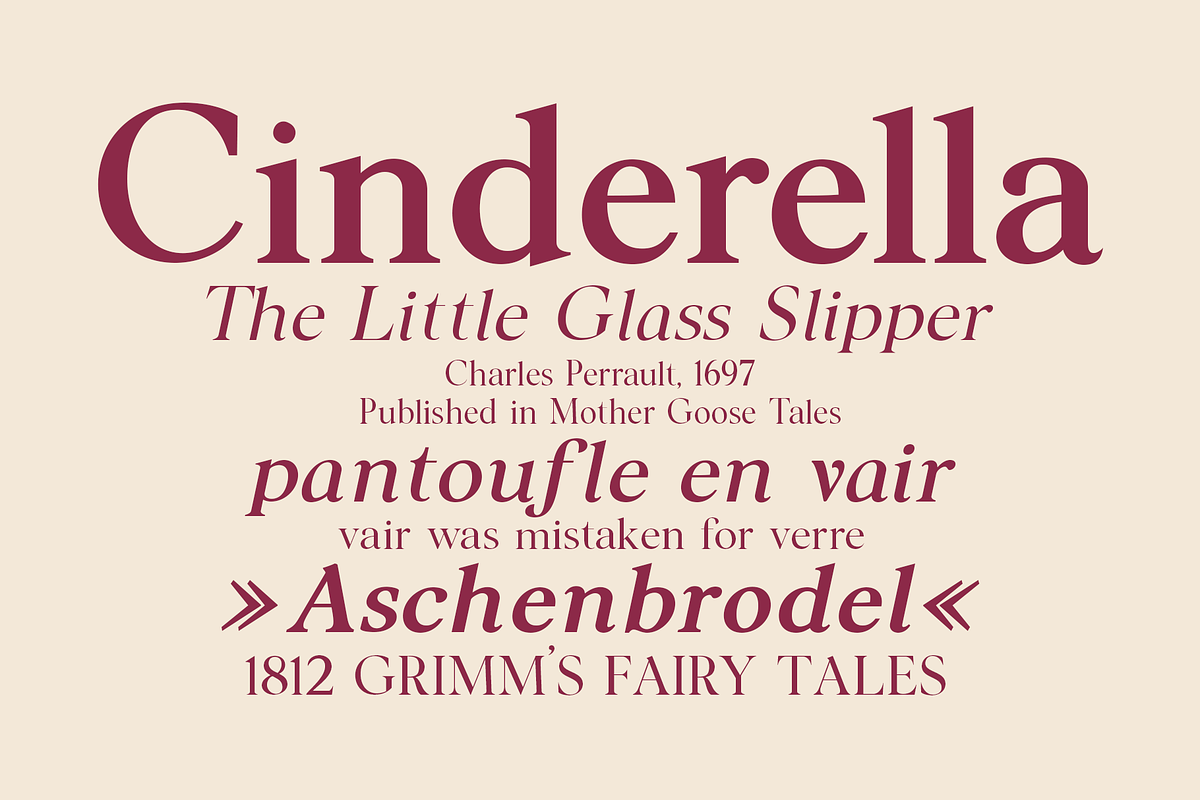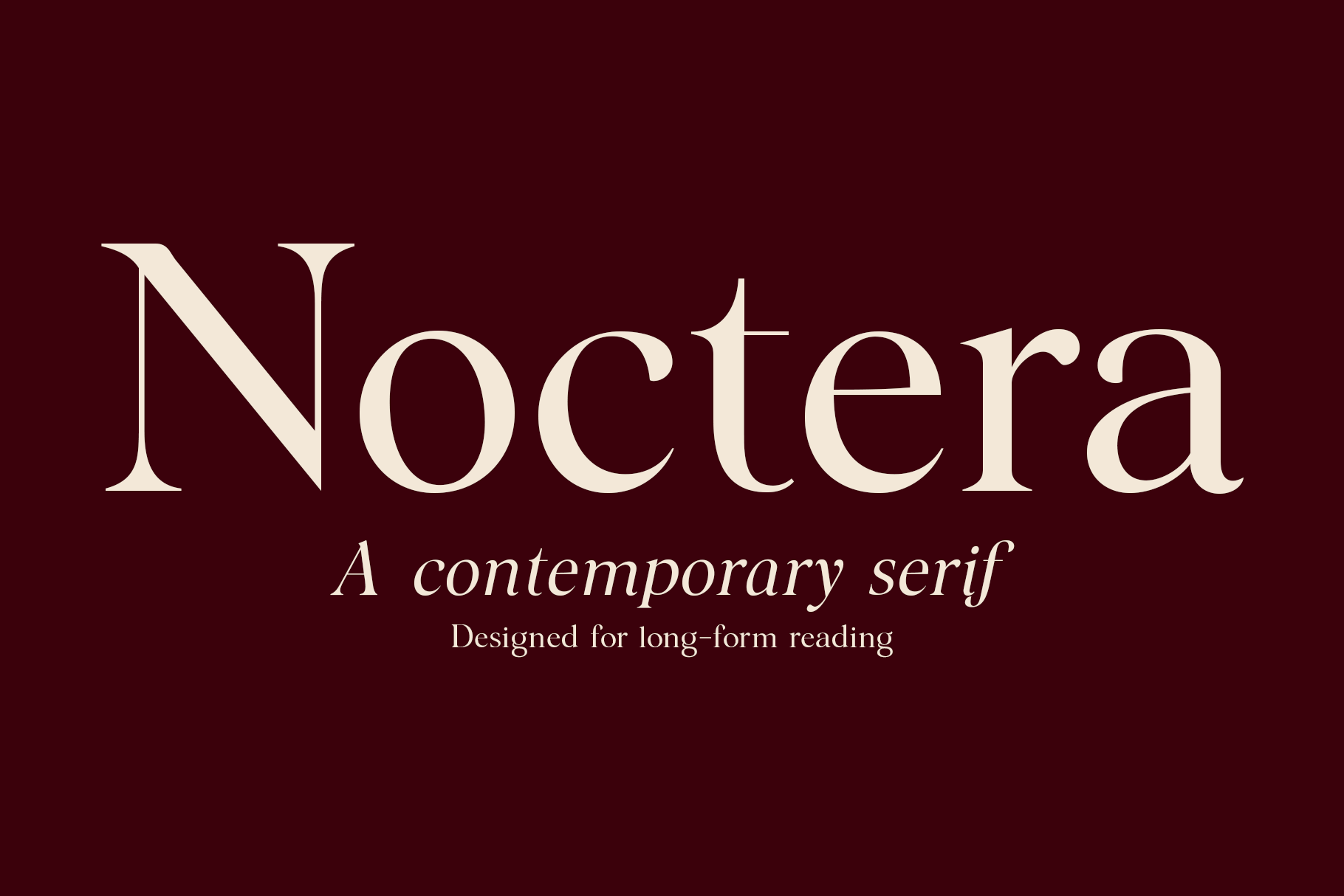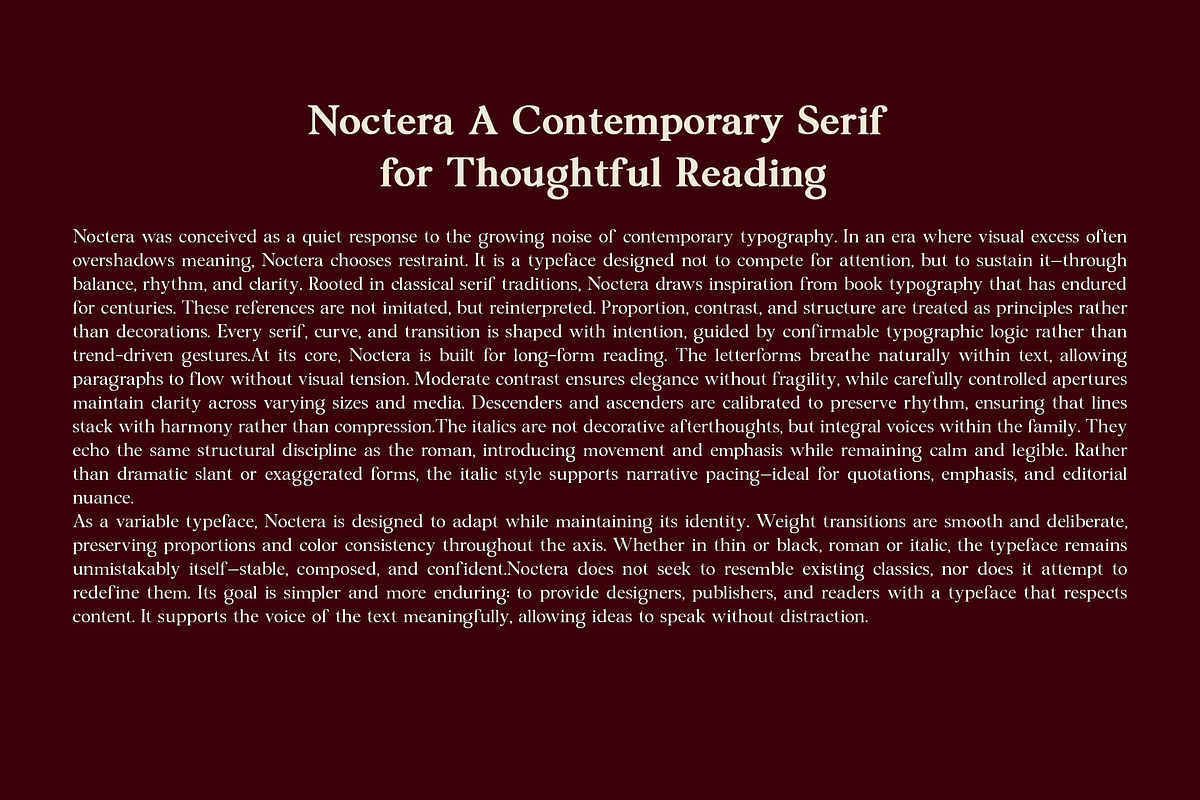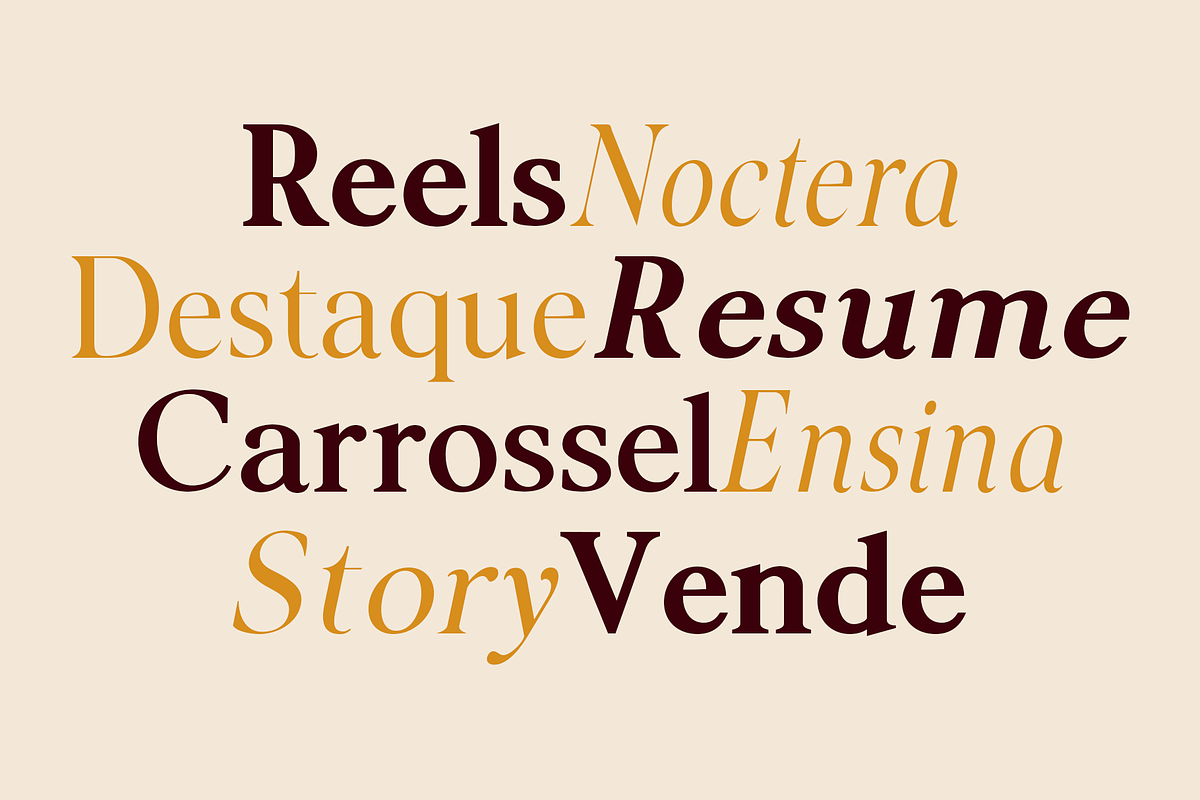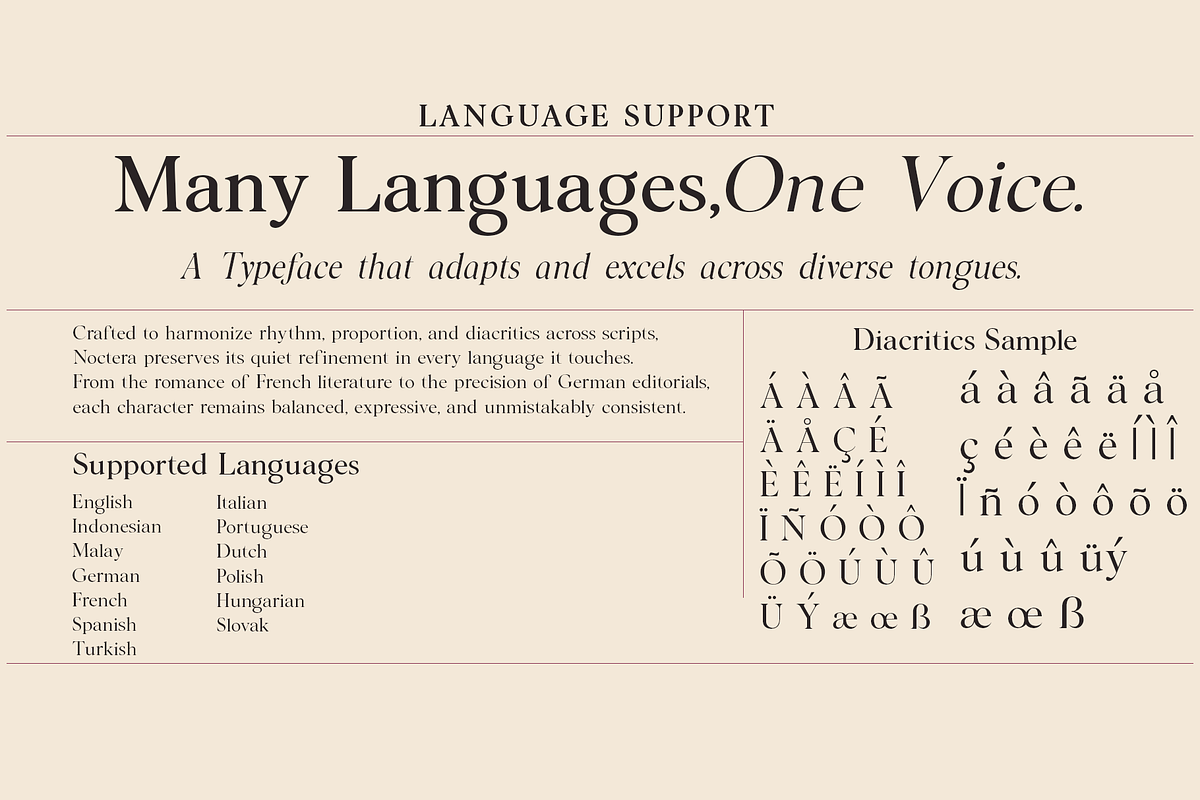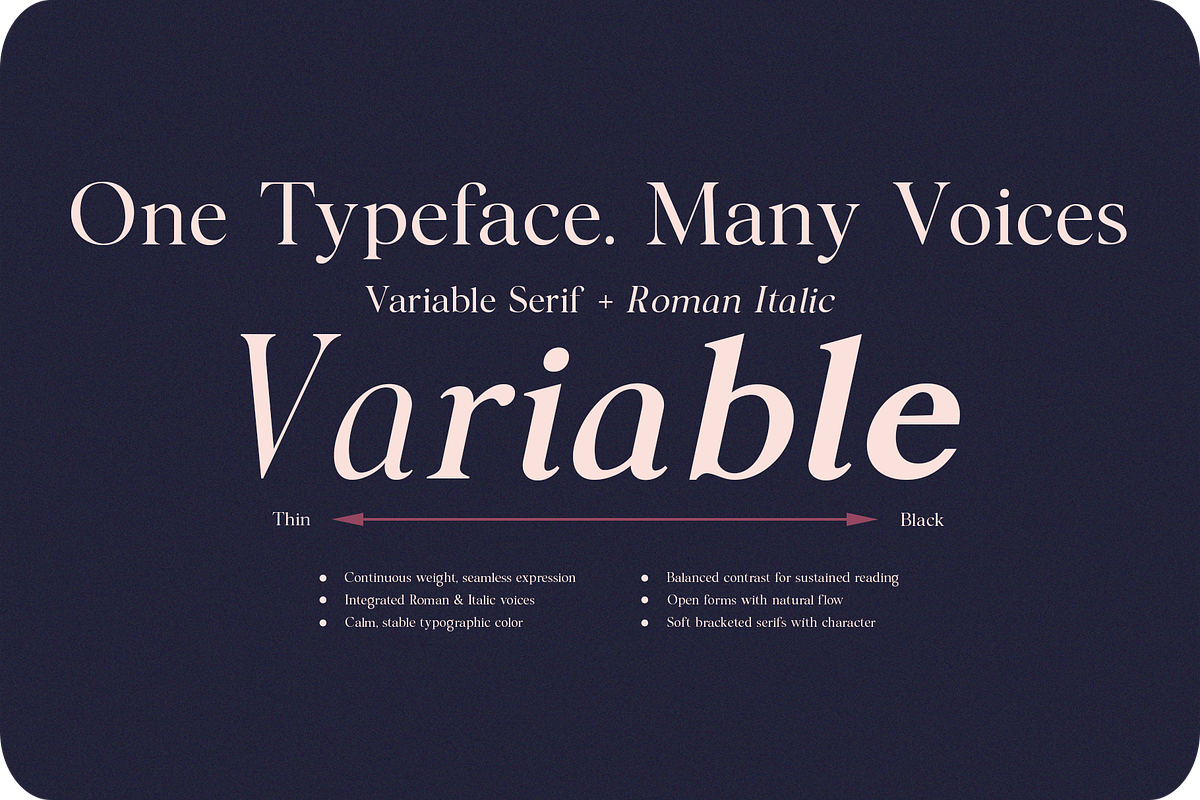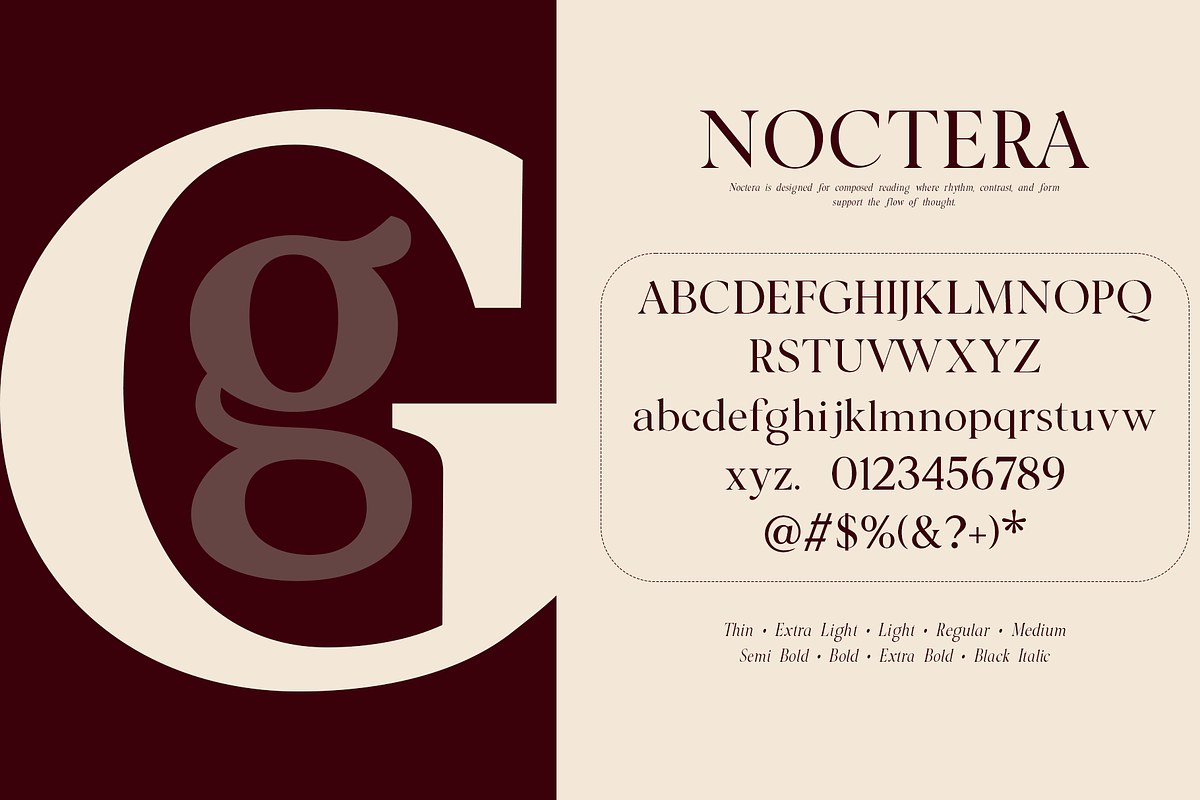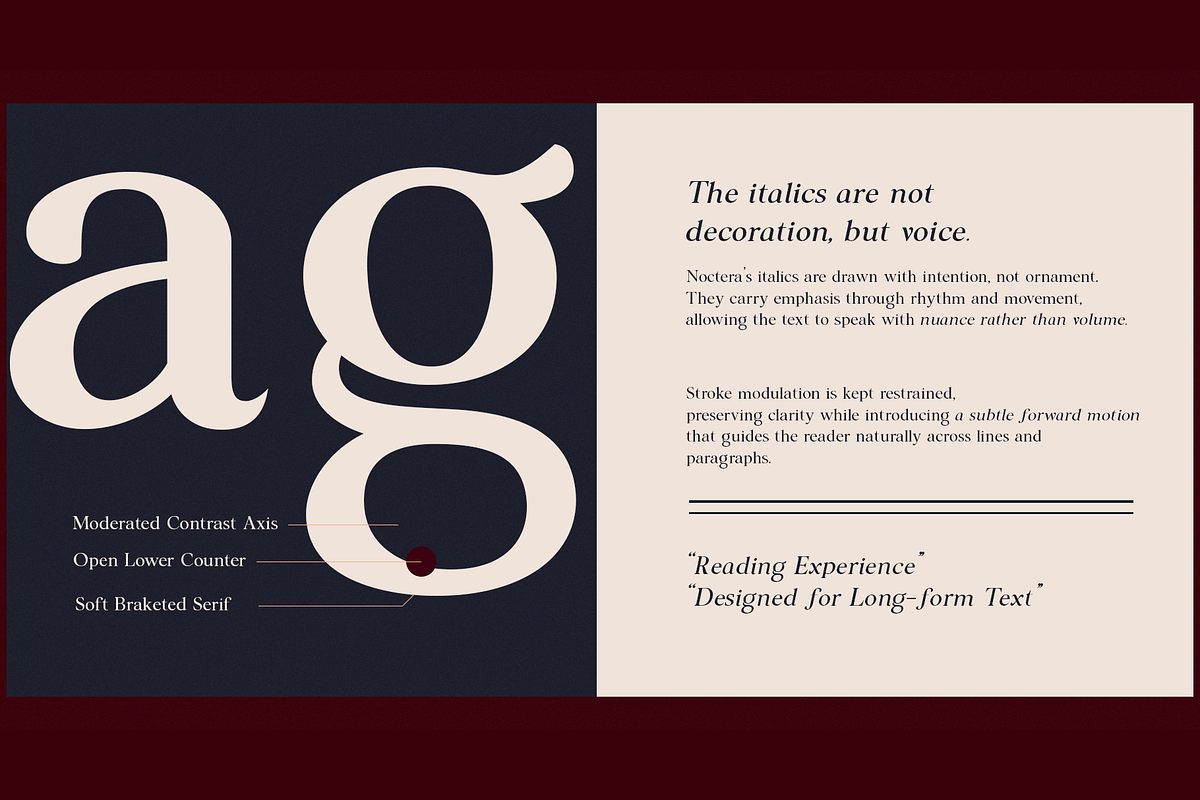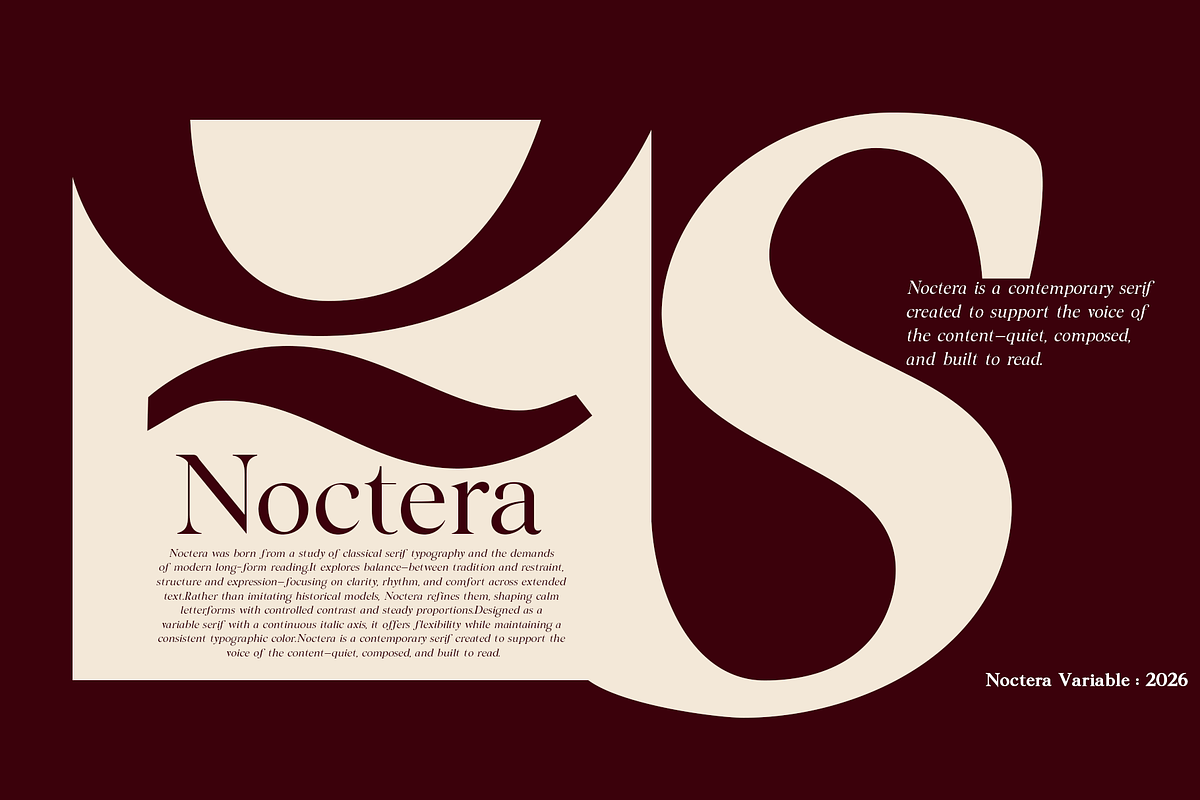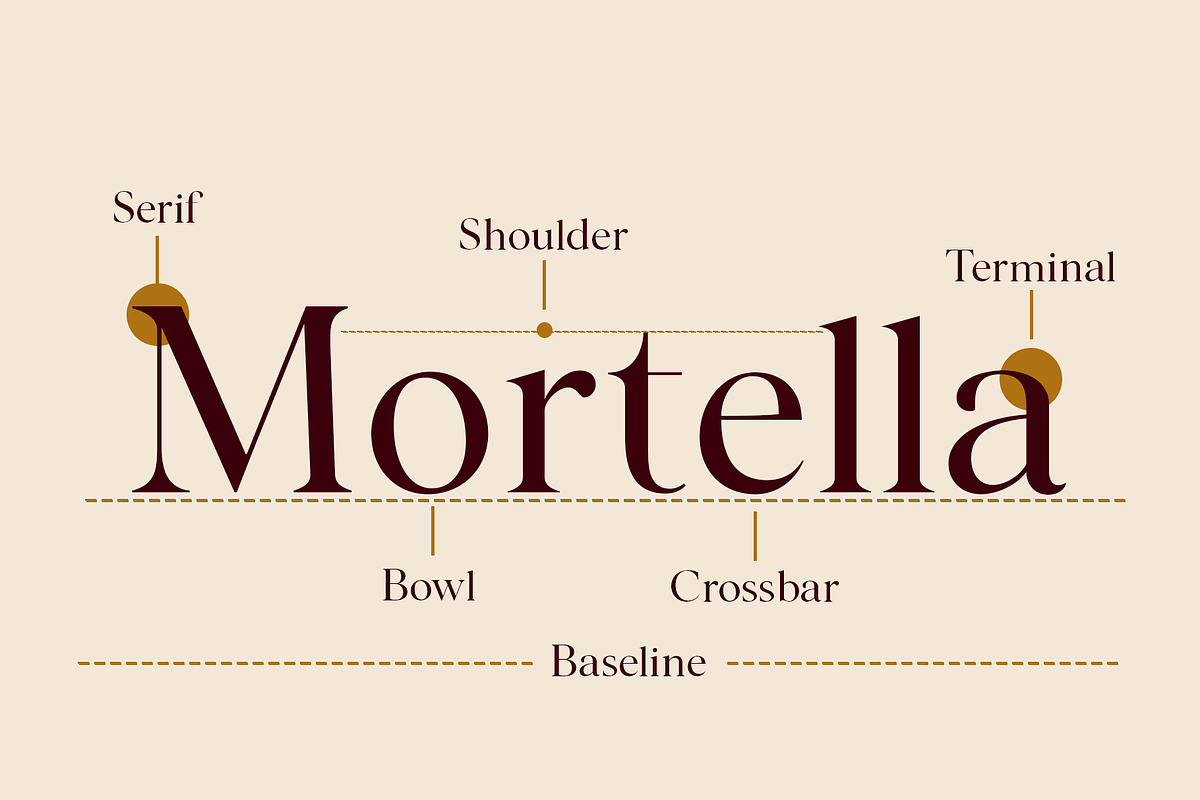
Noctera Modern Editorial Serif Font
Noctera is a modern editorial serif typeface designed for long-form reading, publishing, and refined visual storytelling. Balancing classical serif structure with contemporary proportions, Noctera delivers elegance, clarity, and versatility across both print and digital environments.
✦ Key Features • 18 styles + 2 Variable Fonts • Modern editorial serif design • Variable font with weight flexibility • Carefully designed numerals (lining & oldstyle) • Professional spacing and kerning • Optimized for print & digital publishing • Extensive language support • Ideal for books, magazines, branding, and luxury layouts
Noctera is built for designers who value clarity, elegance, and timeless editorial typography.